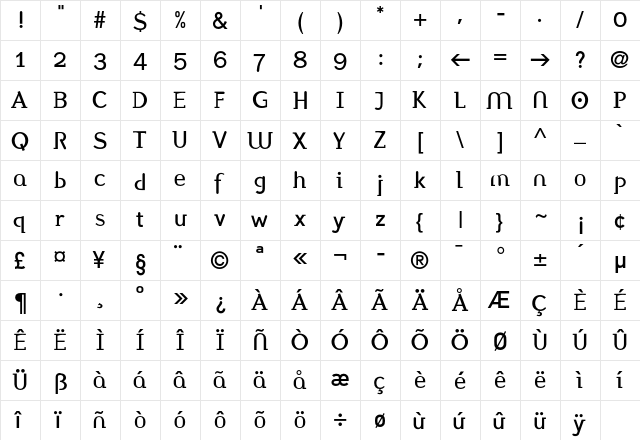
F2FStylettiMedium LT Std Regular
| Foundry | Linotype GmbH |
| Designer | Sibylle Schlaich |
Design Context for F2FStylettiMedium LT Std Typeface
F2FStylettiMedium LT Std is a composed and adaptable typeface that performs quietly and consistently across a wide range of design contexts. Its slender proportions lend an understated elegance to any composition.